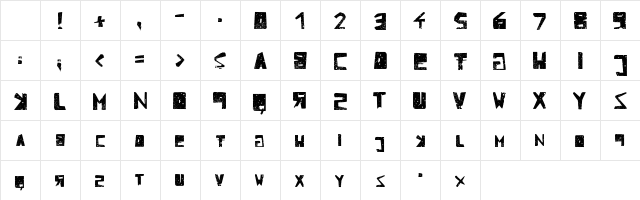
Ugloosy is a composed and adaptable typeface that performs quietly and consistently across a wide range of design contexts. Its bold stroke weight gives it real presence on the page.
Who designed the Ugloosy Bold font?